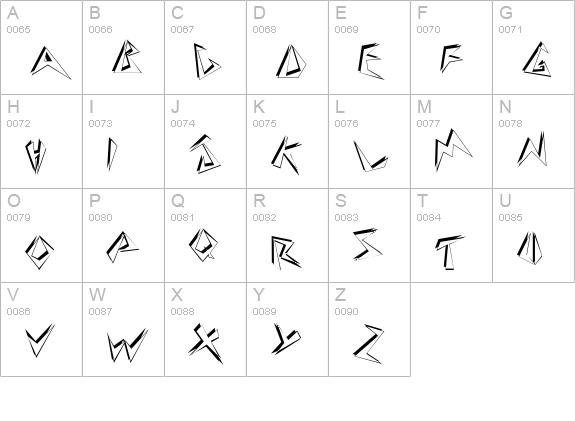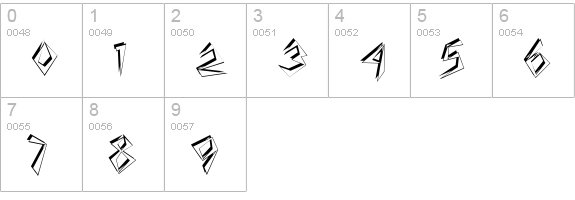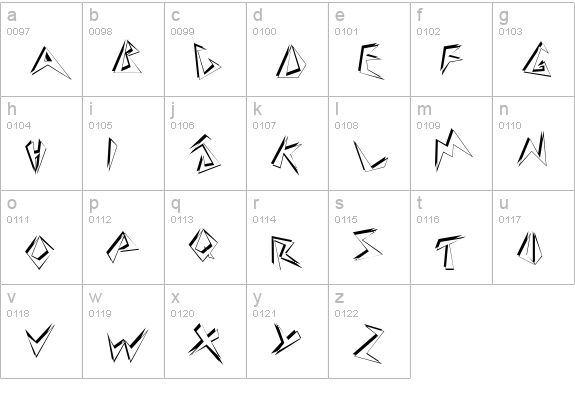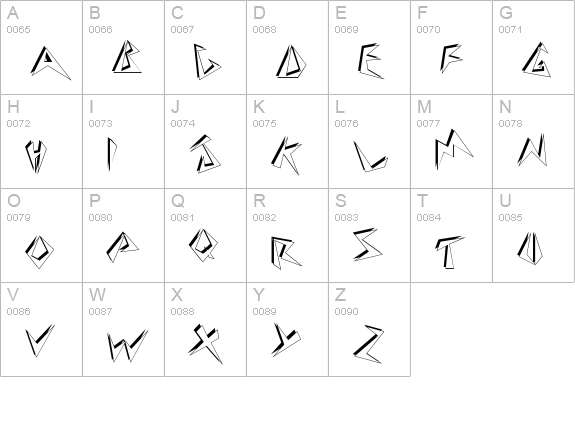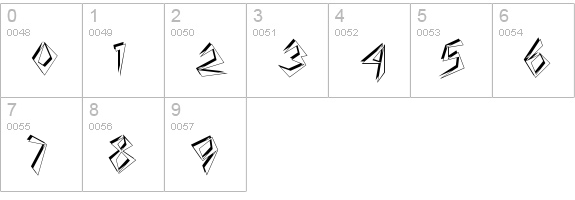
Zapper font is a sleek, modern typeface that exudes energy and dynamism. With its sharp angles and bold letterforms, Zapper is perfect for creating eye-catching designs that demand attention. Whether used for headlines, logos, or posters, this font is sure to make a statement. What sets Zapper font apart is that it is not only stylish and versatile but also free for personal and commercial use. You can easily download Zapper font at FontsMarket.com and start incorporating its electrifying style into your projects today. Don't miss out on this fantastic opportunity to add a touch of boldness and flair to your designs with Zapper font.